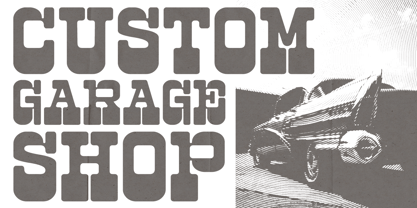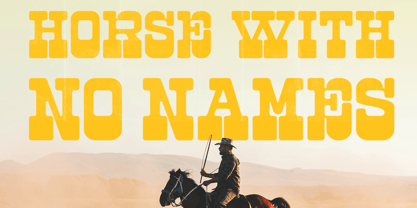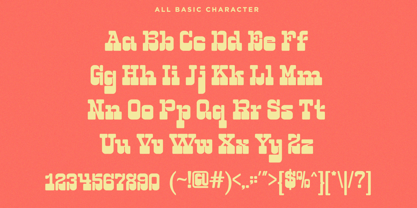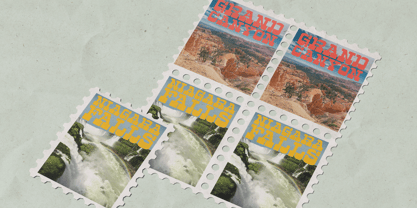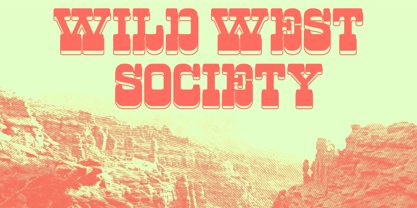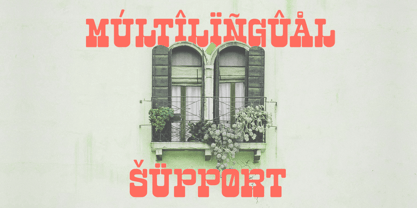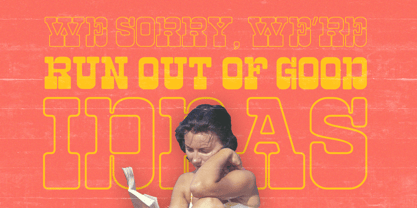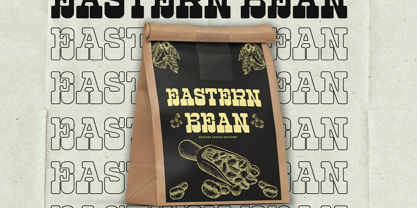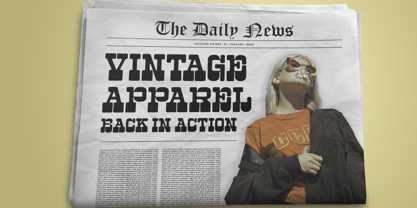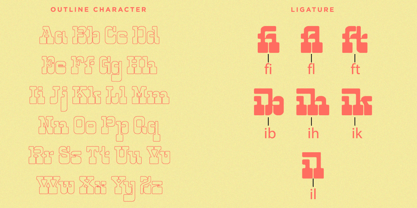
Tekila
by Say Studio
The Tekila Font Family was designed by Mussyayin and published by Say Studio. Tekila contains 2 styles and family package options.
Tekila is a Western display font hat captures the timeless charm of the Western cowboy era. Designed specifically for headlines and logos, this font adds the perfect touch to your design projects.
With its distinct Slab Serif characters, Tekila brings a strong, masculine, and captivating vibe. Combining retro design elements with a modern twist, this font creates a delightful and unique harmony.
Tekila is ready to bring your logos, headlines, and branding designs to life with its timeless design.